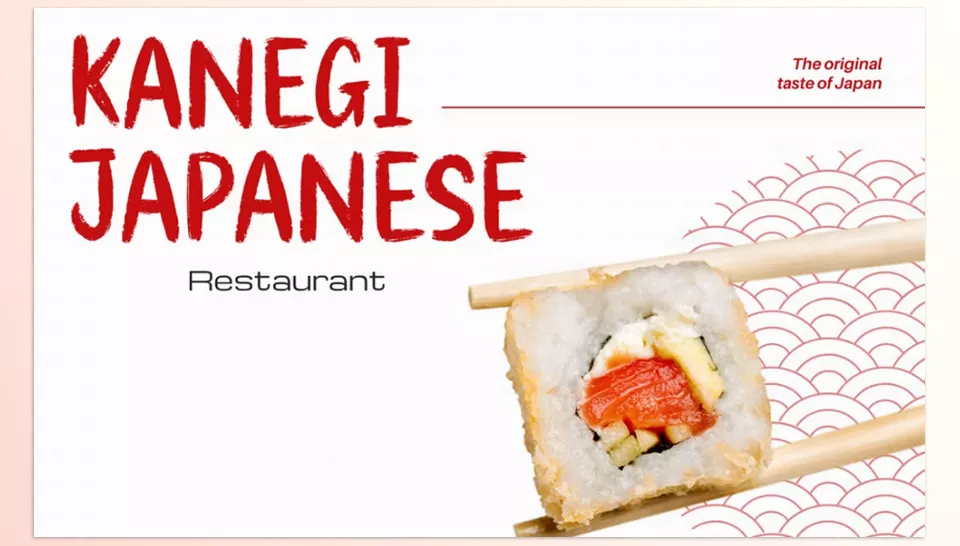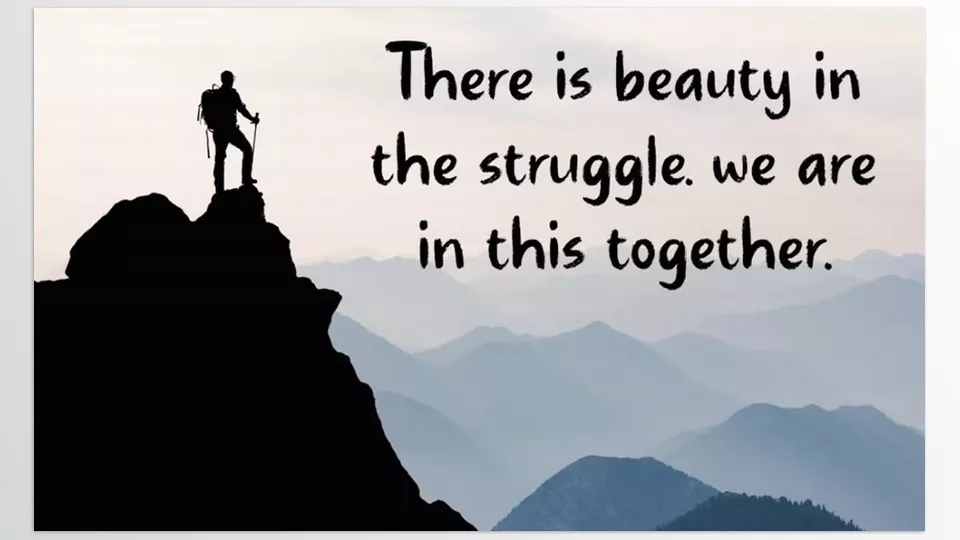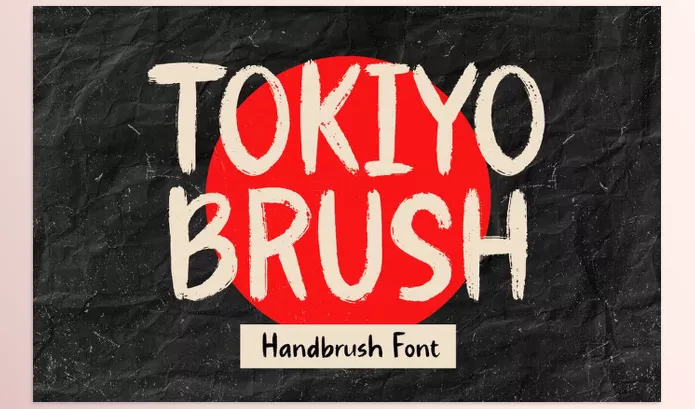
Creative Market – Tokiyo Brush is an ambitious, expressive hand-brushed font that provides designs with lively, urban contact. Its textured strokes and colorful style make it best for creating impactful, innovative visuals.
Image 1: Add a dynamic, artistic touch to your designs with textured strokes that stand out and captivate attention.
Image 2: Perfect for projects that need an expressive, urban vibe, this hand-brushed font brings bold energy to any creative work.